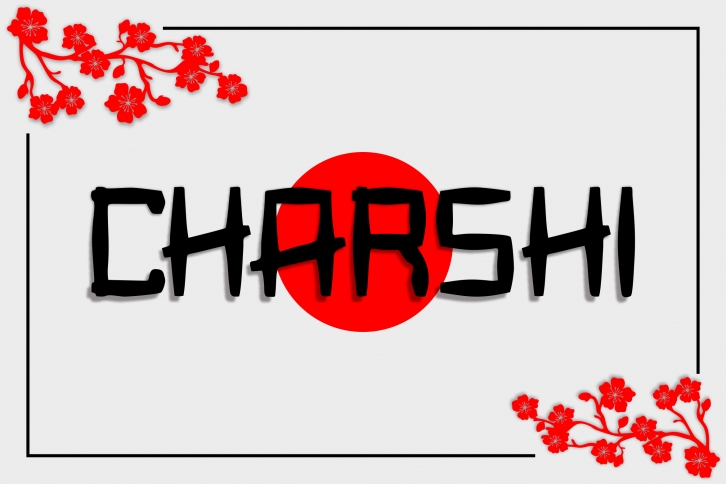
Charshi is a modern display font with a straightforward and authentic look. It is suitable for branding projects such as logos, T-shirt printing, Esports, and many more. Add it to your fonts library, and it will become an instant favorite!